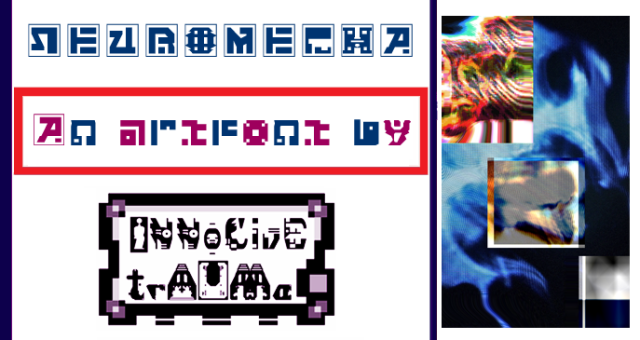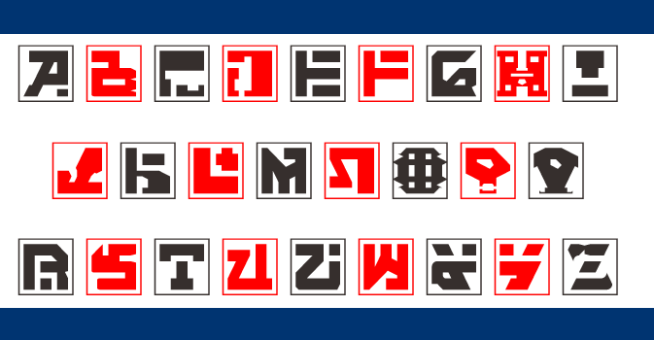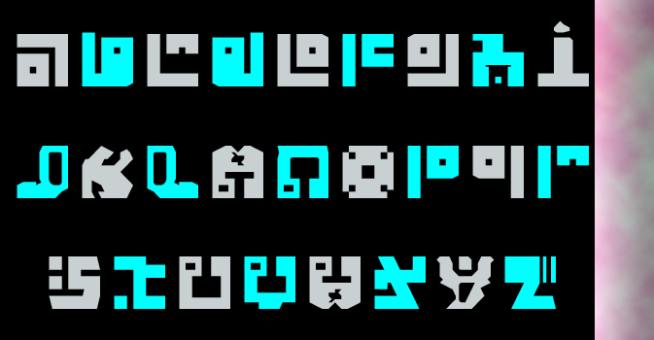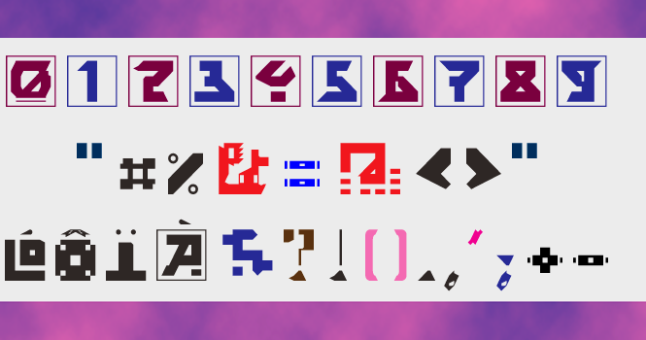
trAUMa 21 / Neuromecha
"Neuromecha", like all the "trAUMa" series, works at the frontier between Art & Type Design, Figuration & Abstraction, each font is a comprehensive world in which every glyph is a "living" entity. But put together they can produce your messages in the most accurate way.